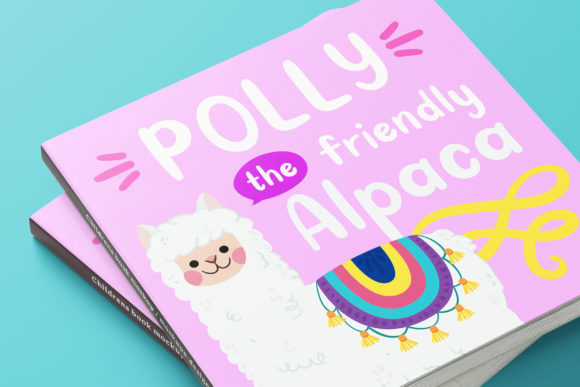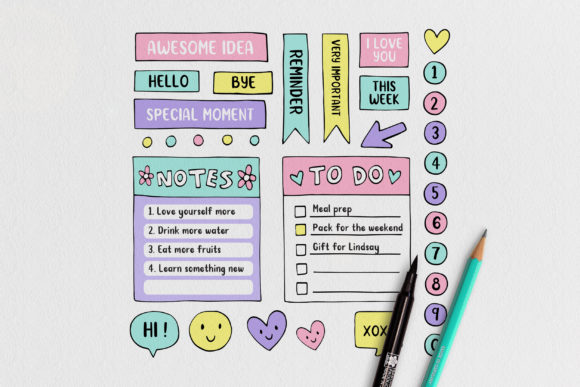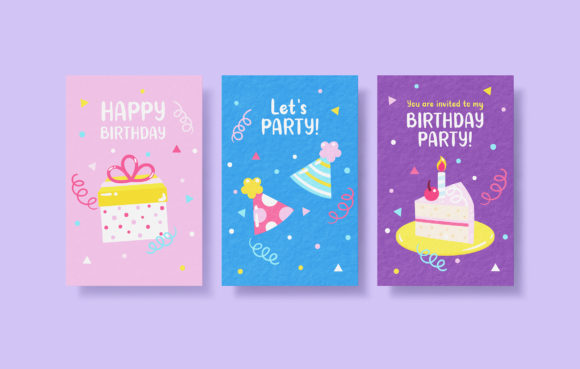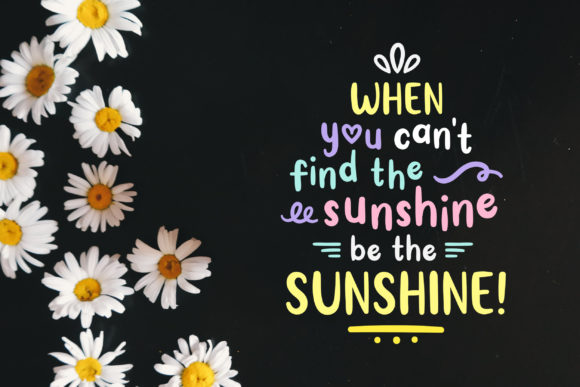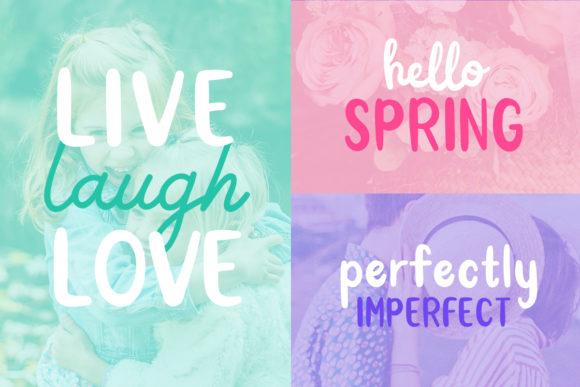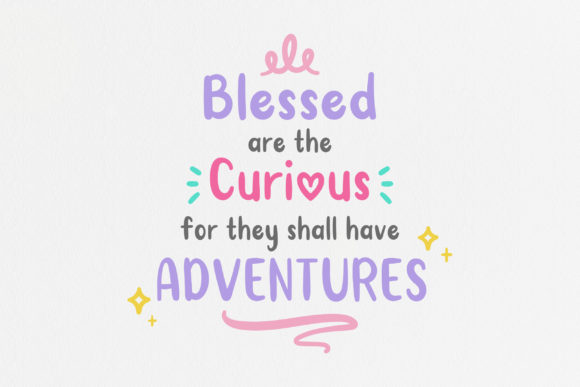
Unlock the Sweetness of Creativity with the Bee Happy Duo Font
Have you ever been brainstorming for hours, searching for the perfect font to bring your design to life? You finally find it, and that rush of excitement is like a shot of espresso to your creativity – it’s invigorating! For designers and crafty enthusiasts, finding the right font can be a game-changer. That’s where the Bee Happy Duo Font comes in – a playful, versatile font duo that’s perfect for adding a touch of whimsy to your designs.
With its regular and doodle versions, the Bee Happy Duo Font is a valuable addition to any designer’s toolkit. Whether you’re creating quotes, party invites, or blog headers, this font duo is sure to bring a smile to your customers’ faces. And the best part? It’s perfect for any design or craft project, from home decor to t-shirts and posters.
Bee Happy Duo Font Key Features
- Font Family: Bee Happy Duo, a unique and playful duet of two fonts – Bee Happy and Duo.
- Font Size: Available in 4 font sizes – Bee Happy (Regular, Bold, Italic, Bold Italic) and Duo (Regular, Bold, Italic, Bold Italic), each with 800 glyphs.
- Resolution: Optimized for high-resolution displays, making it suitable for print and digital use.
- Unique Characteristics: The Bee Happy Duo font features a mix of modern and vintage elements, with a unique blend of playful and elegant styles.
- Language Support: Supports multiple languages, including English, Spanish, French, German, Italian, and many more.
Bee Happy Duo Font Review
I recently had the chance to work with the Bee Happy Duo Font, and I must say it’s a unique and fun addition to any design project. ✨ The dual font style is certainly eye-catching, and it can add a playful touch to your designs. I particularly enjoyed using it for titles and headings, where its bold and playful personality shines through.
The font is well-suited for projects that require a lighthearted and whimsical feel, such as children’s books, greeting cards, or social media graphics. However, I did find that it can be a bit too playful for more serious or professional designs, where a more traditional font may be more suitable.
- Unique dual font style that adds a playful touch
- Well-suited for projects that require a lighthearted and whimsical feel
- Easy to read and use
- May not be suitable for more serious or professional designs
- Lack of versatility in terms of font styles and weights
- May not be as readable in smaller font sizes
Overall, I think the Bee Happy Duo Font is a great addition to any designer’s toolkit, but it’s essential to use it in the right context. With its playful and eye-catching design, it’s perfect for projects that require a fun and lighthearted feel. However, for more serious or professional designs, it’s best to stick with a more traditional font.